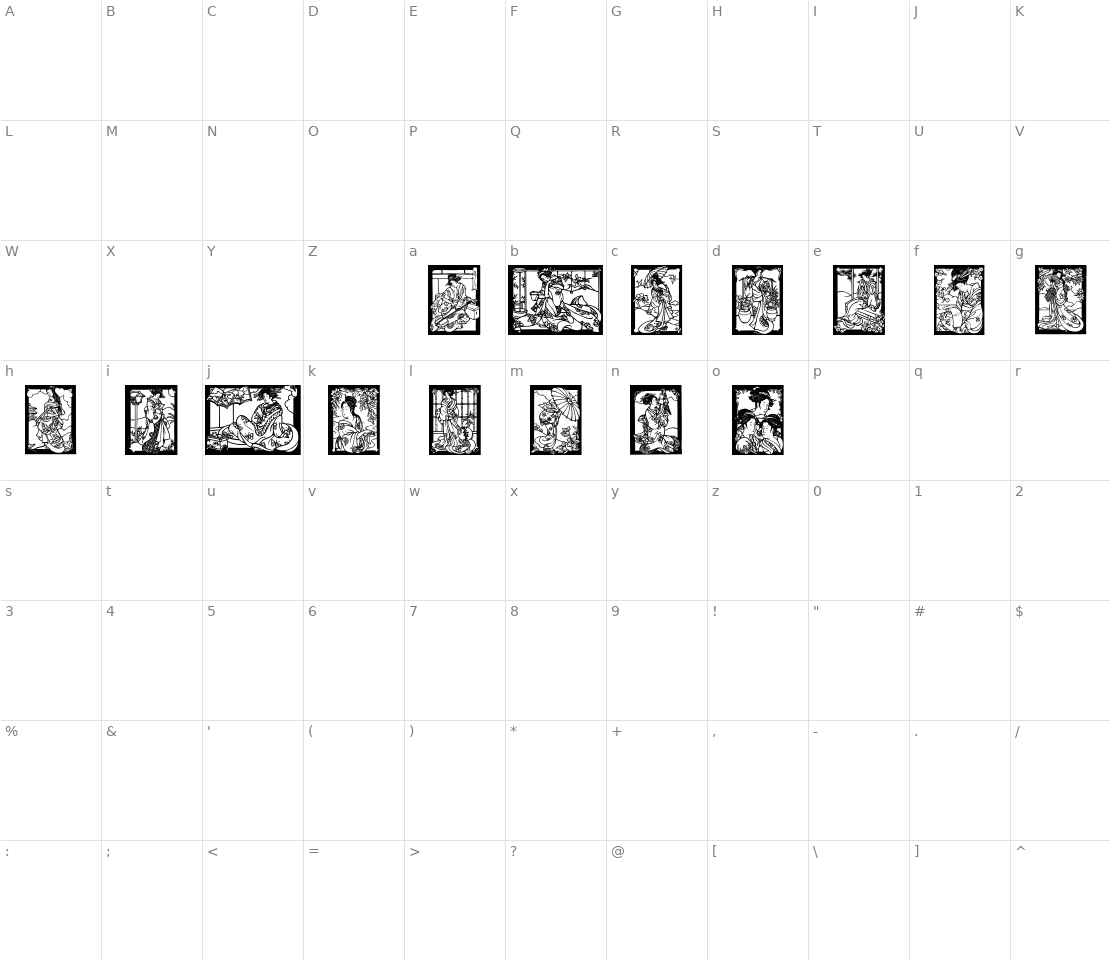
Geisha
Geisha is a decorative illustration font from House of Lime where each character is rendered as a stylized figure or symbol inspired by Japanese woodblock print aesthetics. The ornamental, hand-drawn quality gives it a distinctly cultural flavor, more pictorial than typographic. Best used as an accent element in themed design work, event materials, or editorial layouts where the illustrations can serve as visual punctuation rather than readable text.